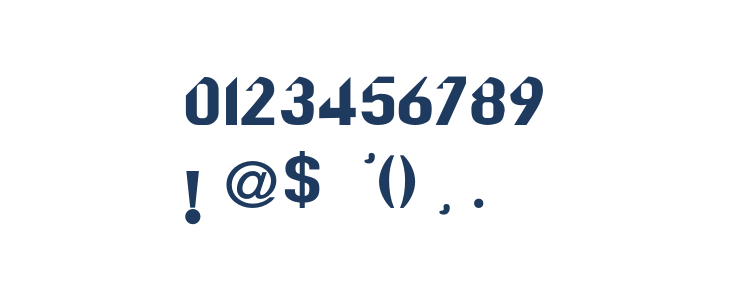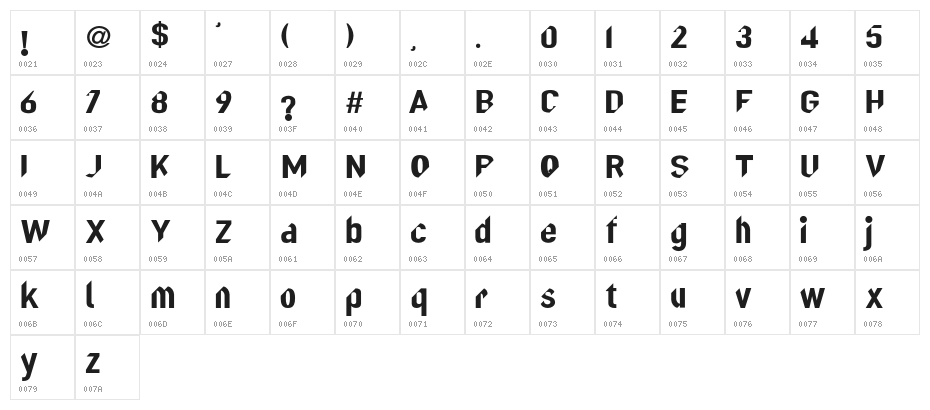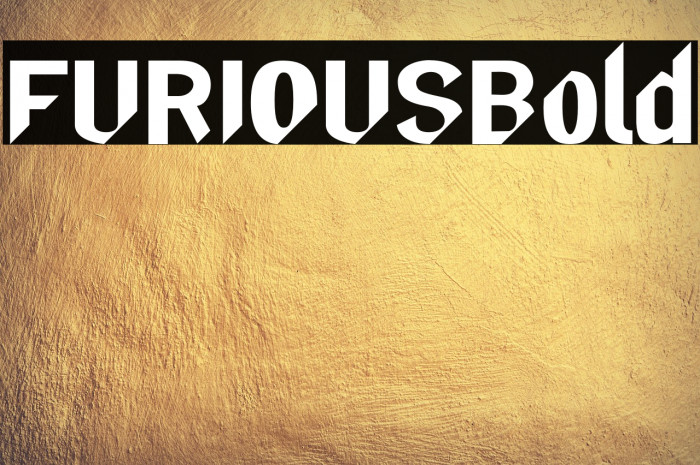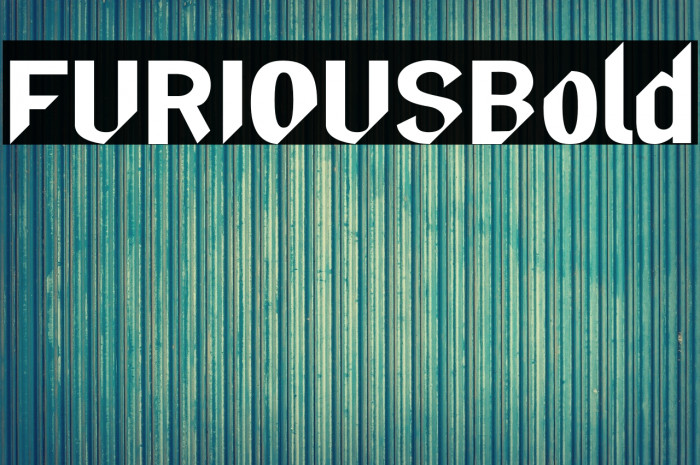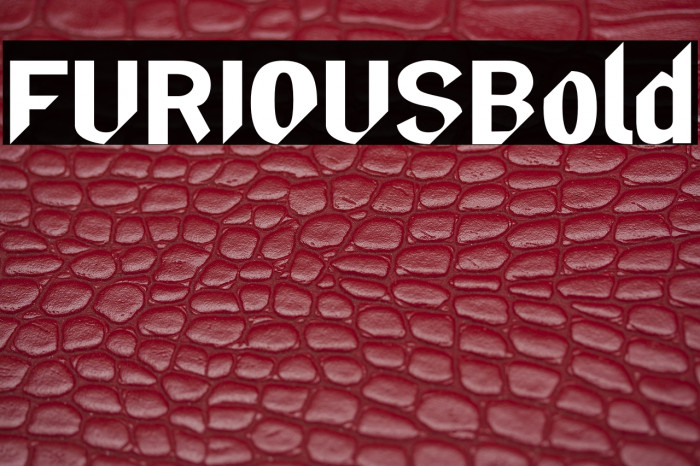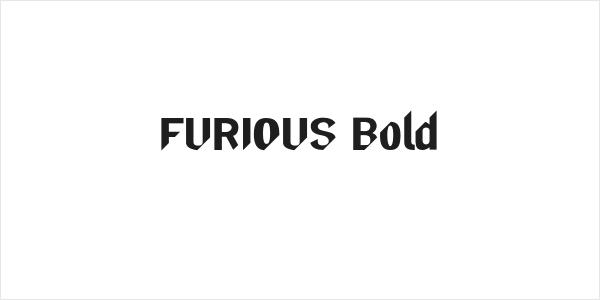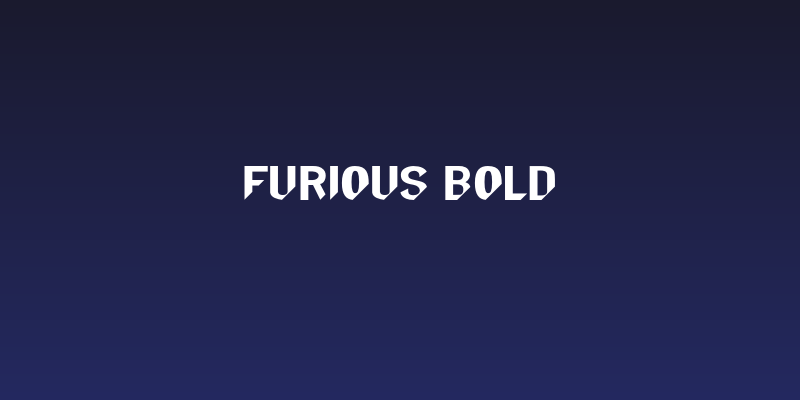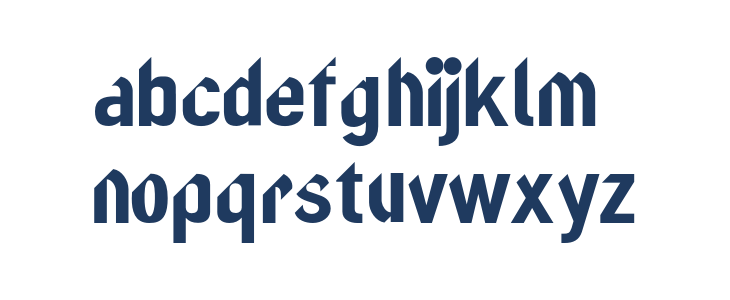
FURIOUS-Bold Font
FURIOUS-Bold Description
This font features a bold, angular design with sharp edges and a strong presence. The uppercase letters are particularly striking, with a geometric style that conveys a sense of power and modernity. The lowercase letters maintain this boldness while introducing some rounded elements, adding a touch of softness to the overall design. The numerals are consistent with the angular theme, ensuring a cohesive look across all characters. Special characters are designed with the same attention to detail, making them suitable for a variety of uses. The font's unique style makes it ideal for projects that require a strong visual impact.